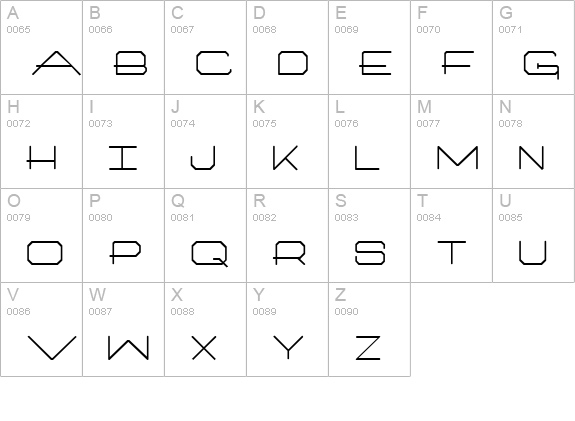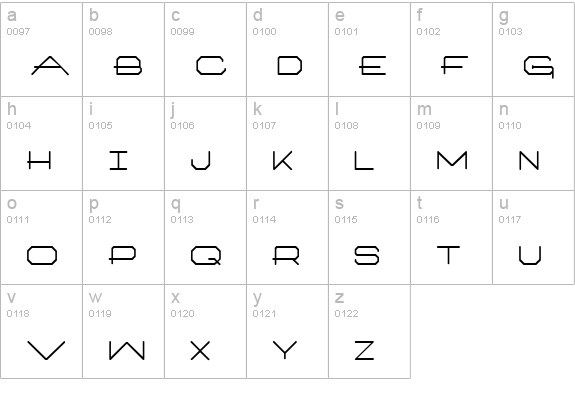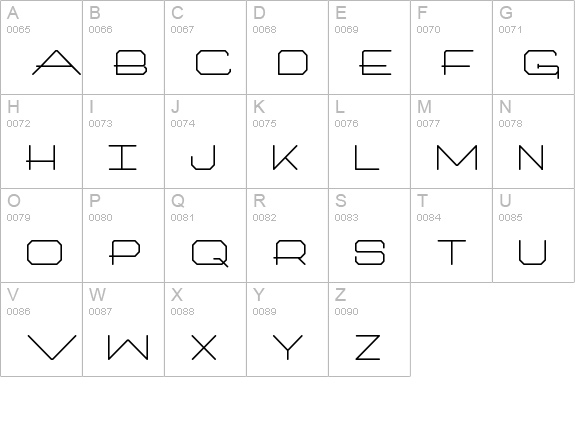
Artlookin Regular Font Details
Artlookin Regular is the standard, neutral variant in the Artlookin typeface family \xE2\x80\x94 well suited to general body text, paragraphs, and standard typographic work.
Artlookin Regular is a versatile and modern typeface that effortlessly combines elegance with readability. Its clean lines and rounded edges make it perfect for a wide range of design projects, from branding and packaging to digital displays and print materials. This font exudes a sense of sophistication and professionalism, making it an ideal choice for both personal and commercial use. What sets Artlookin Regular apart is not only its aesthetic appeal but also its accessibility. This font is available for free download at FontsMarket.com, ensuring that designers of all levels can easily incorporate it into their work without any cost barriers. Whether you're working on a small passion project or a large-scale campaign, Artlookin Regular offers the perfect balance of style and functionality to bring your vision to life.